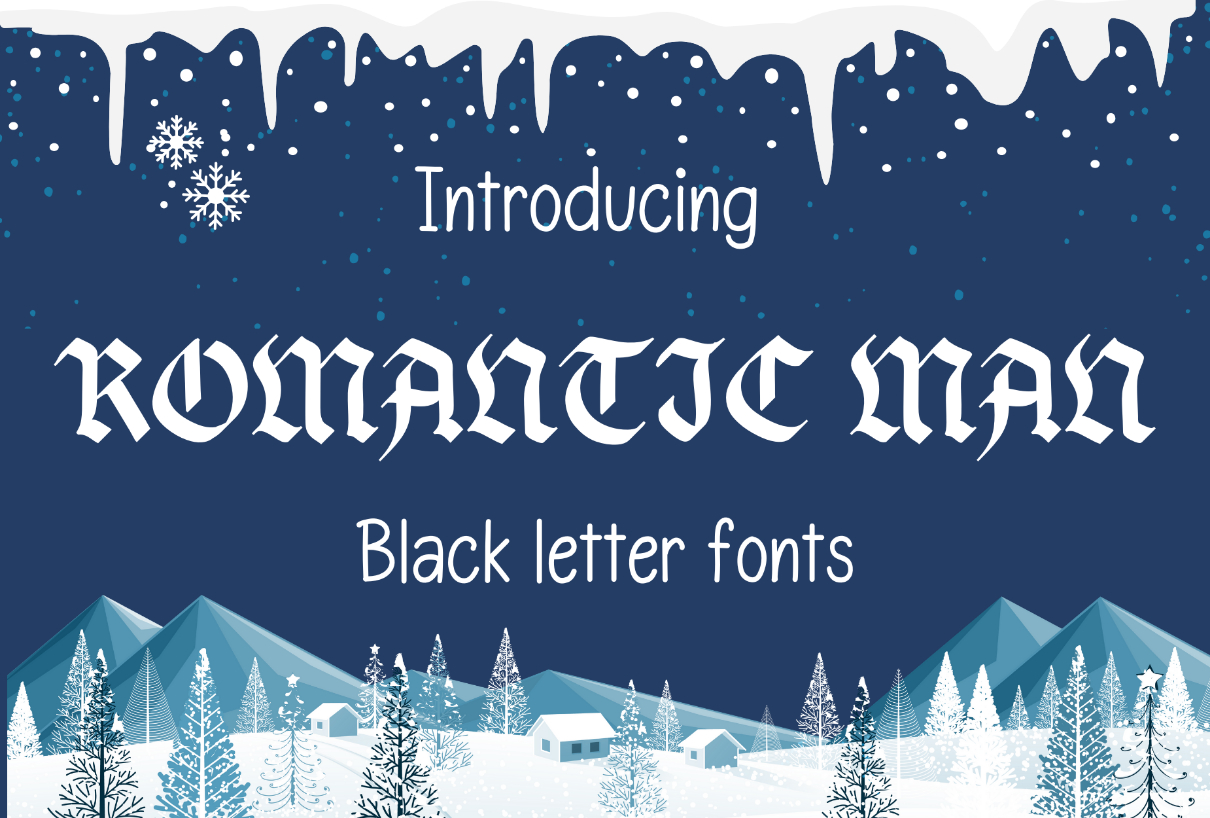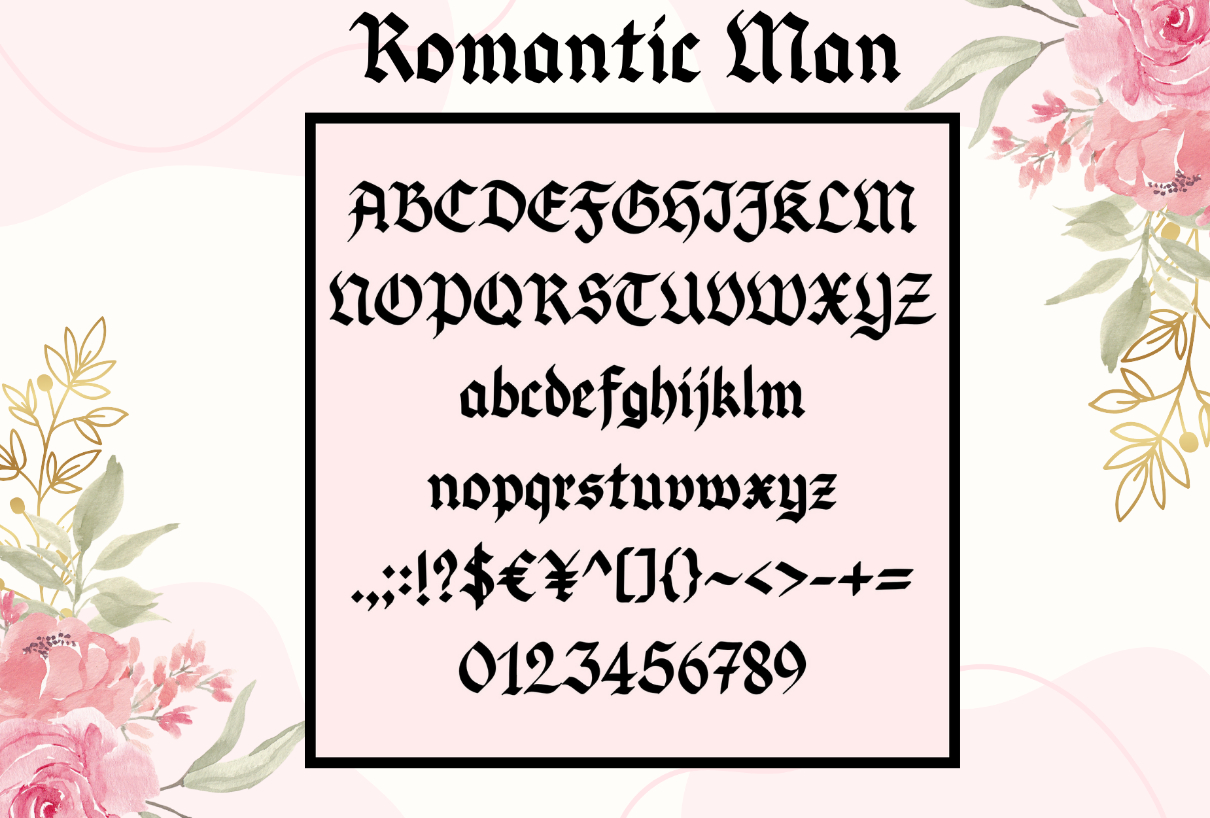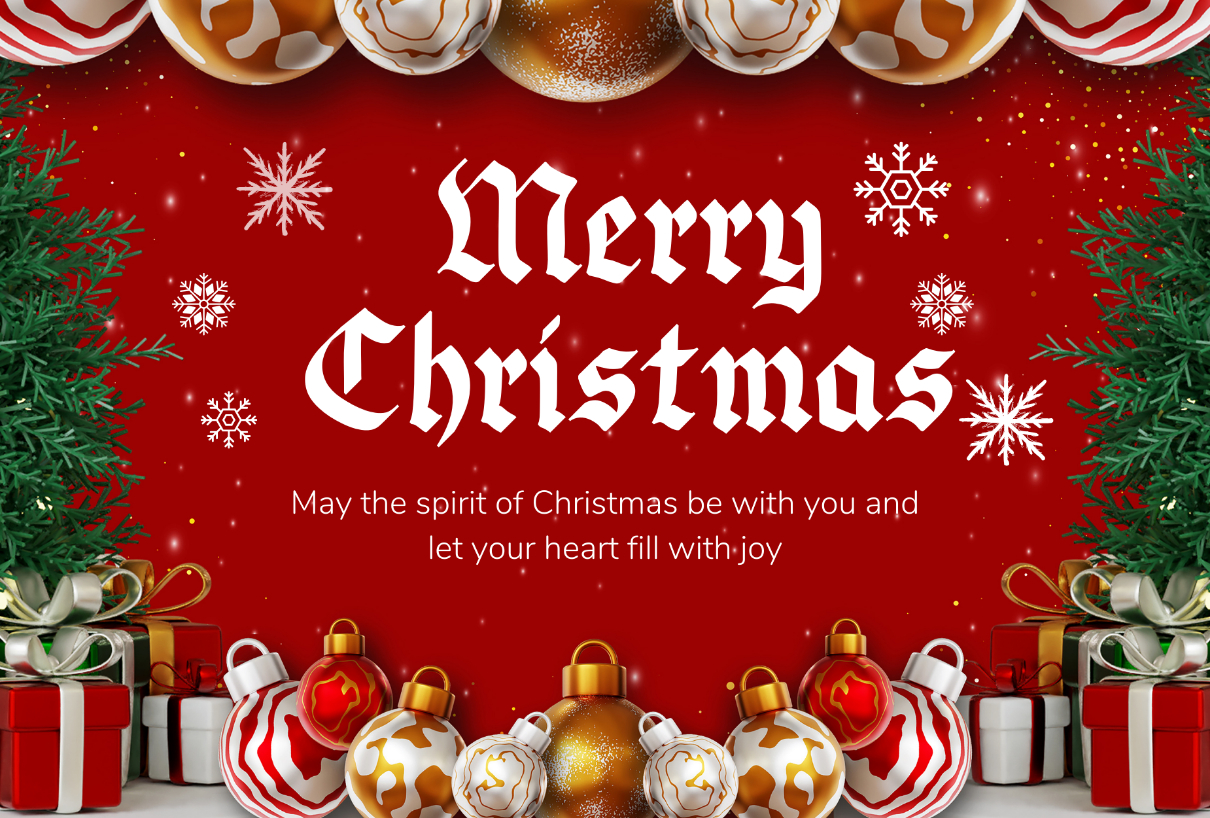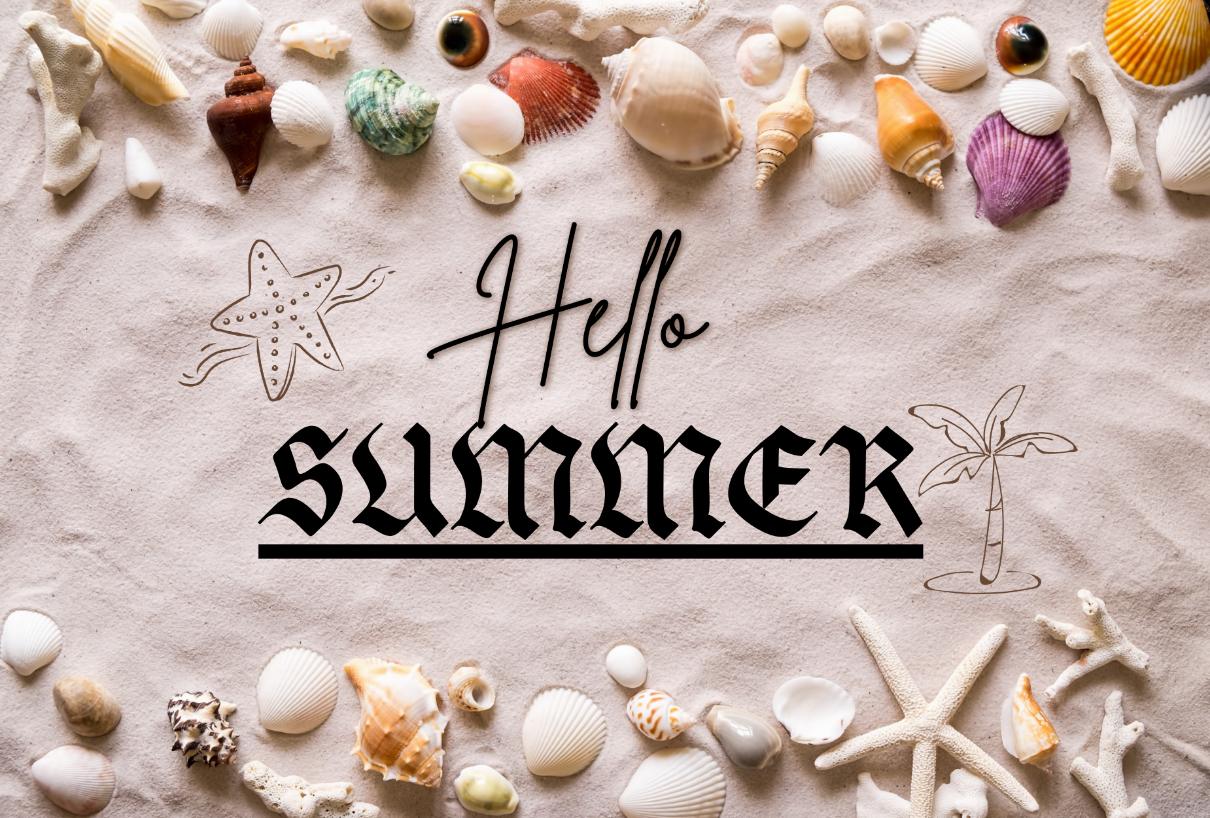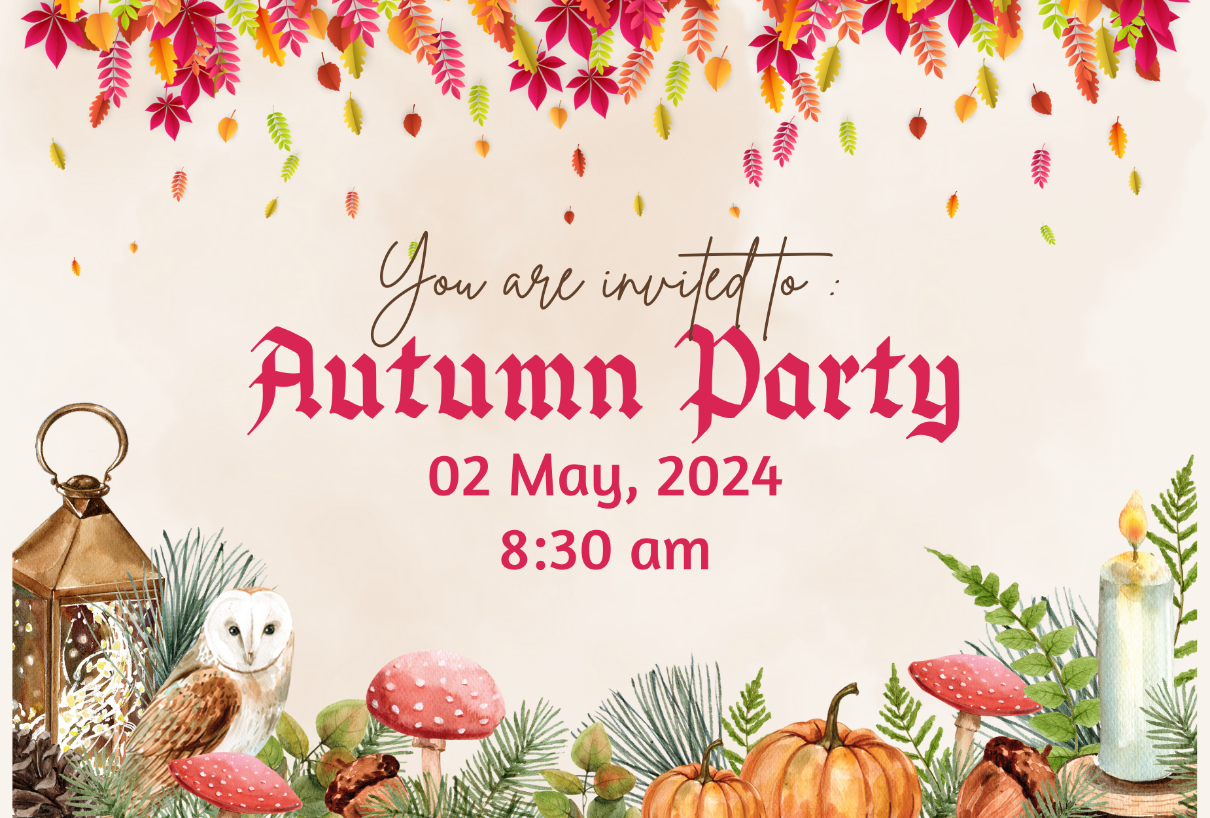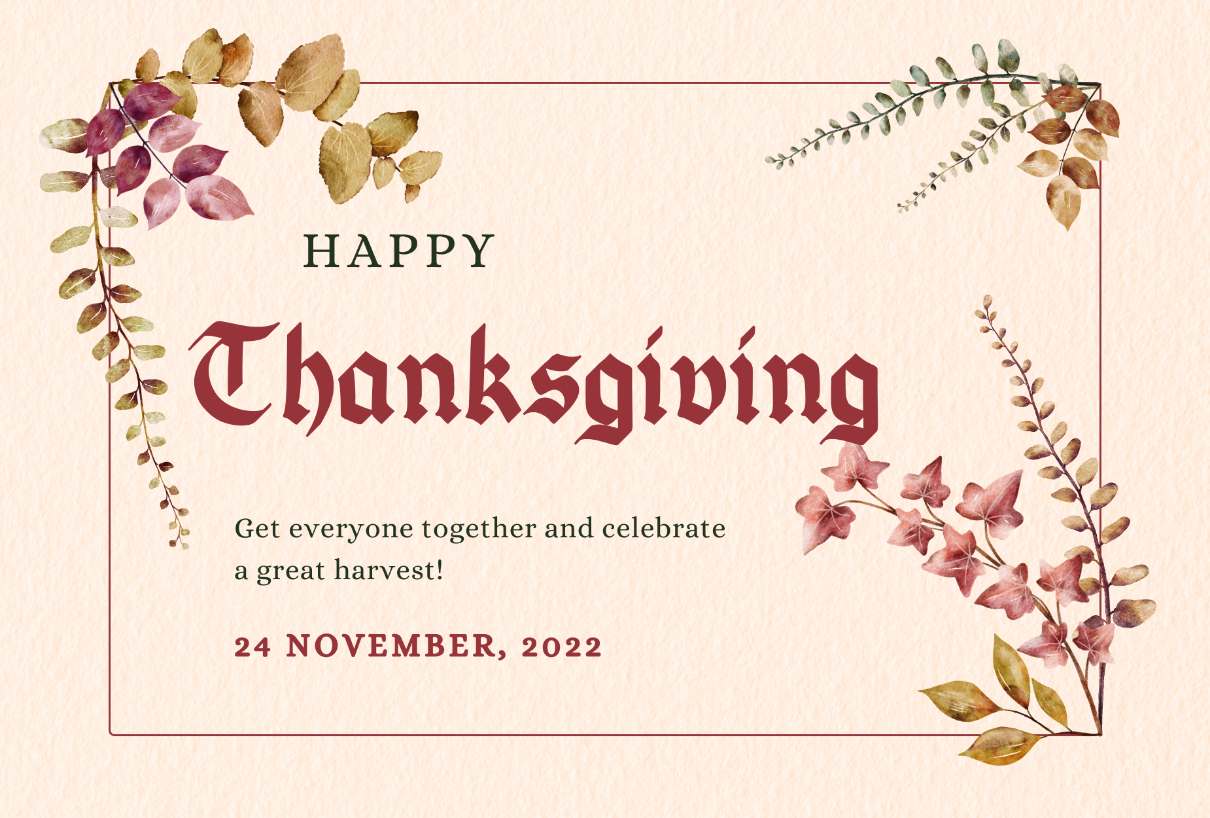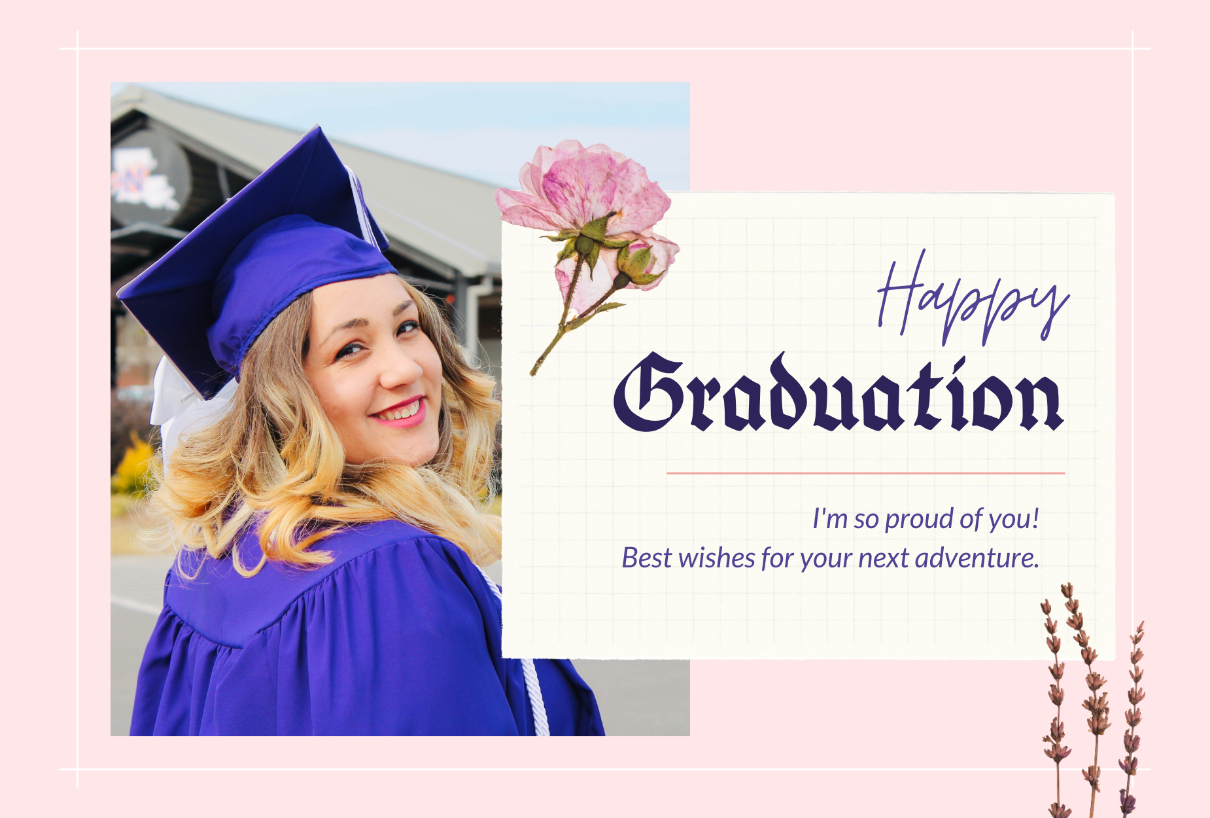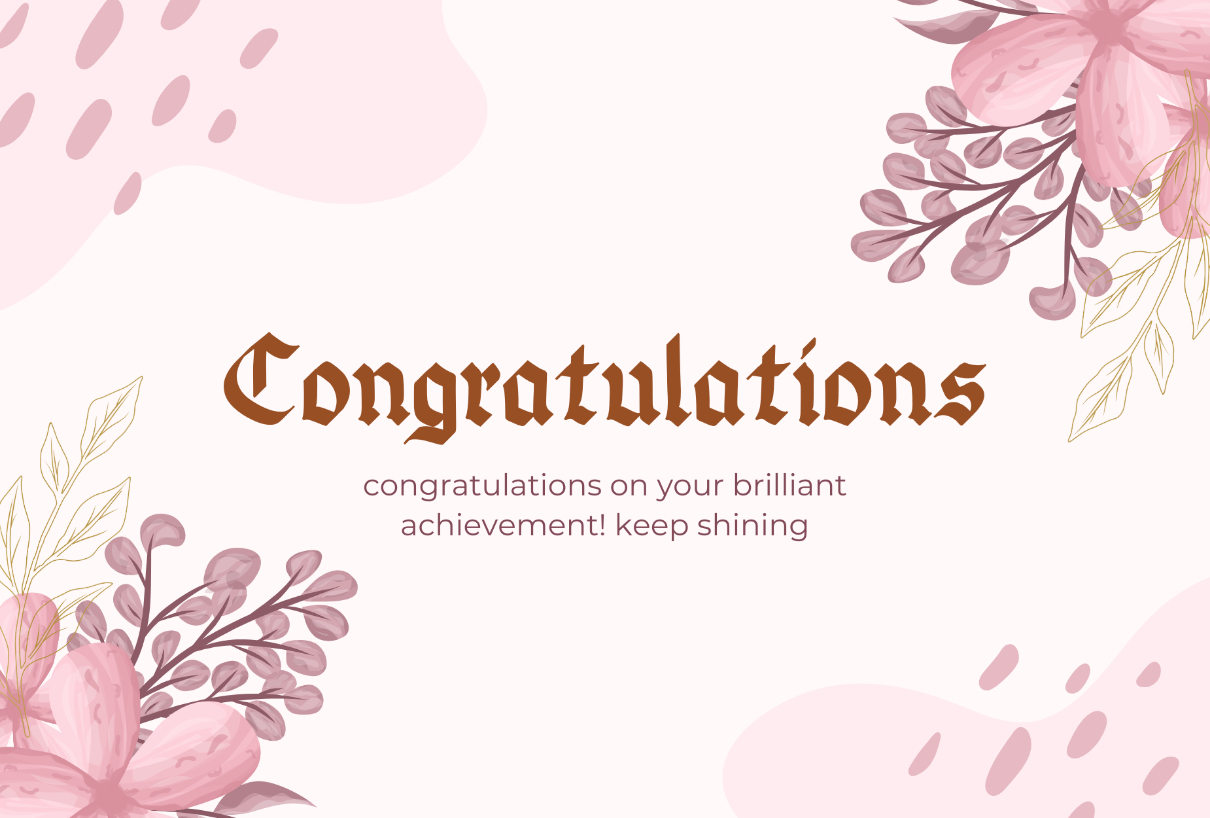
Romantic Man Font
About Romantic Man Font
Romantic man is a bold and thick lettered blackletter font. Add it confidently to your projects, and you will love the results. It is suitable for logotypes, headlines, corporate identity, brand identity, apparel industry, posters, music, movies, games, magazines or any of your creative design projects.